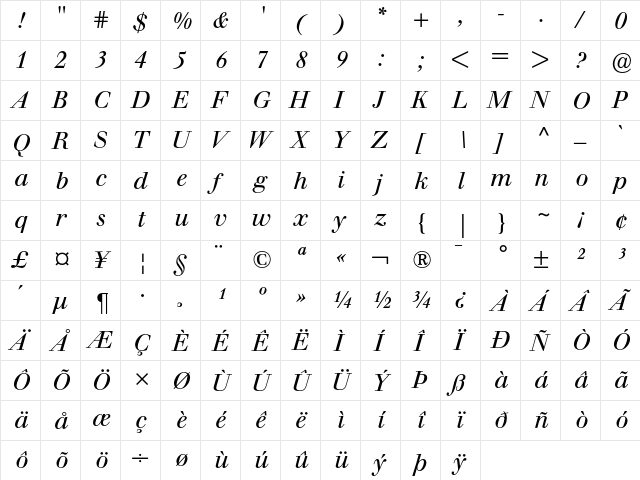
Berthold Walbaum Book Italic Font Preview
Berthold Walbaum Book Italic
Design Context for Berthold Walbaum Book Typeface
Berthold Walbaum Book offers clean, dependable letterforms without strong stylistic allegiance, making it a practical choice for designers who need flexibility. The slanted form adds forward momentum and visual energy.